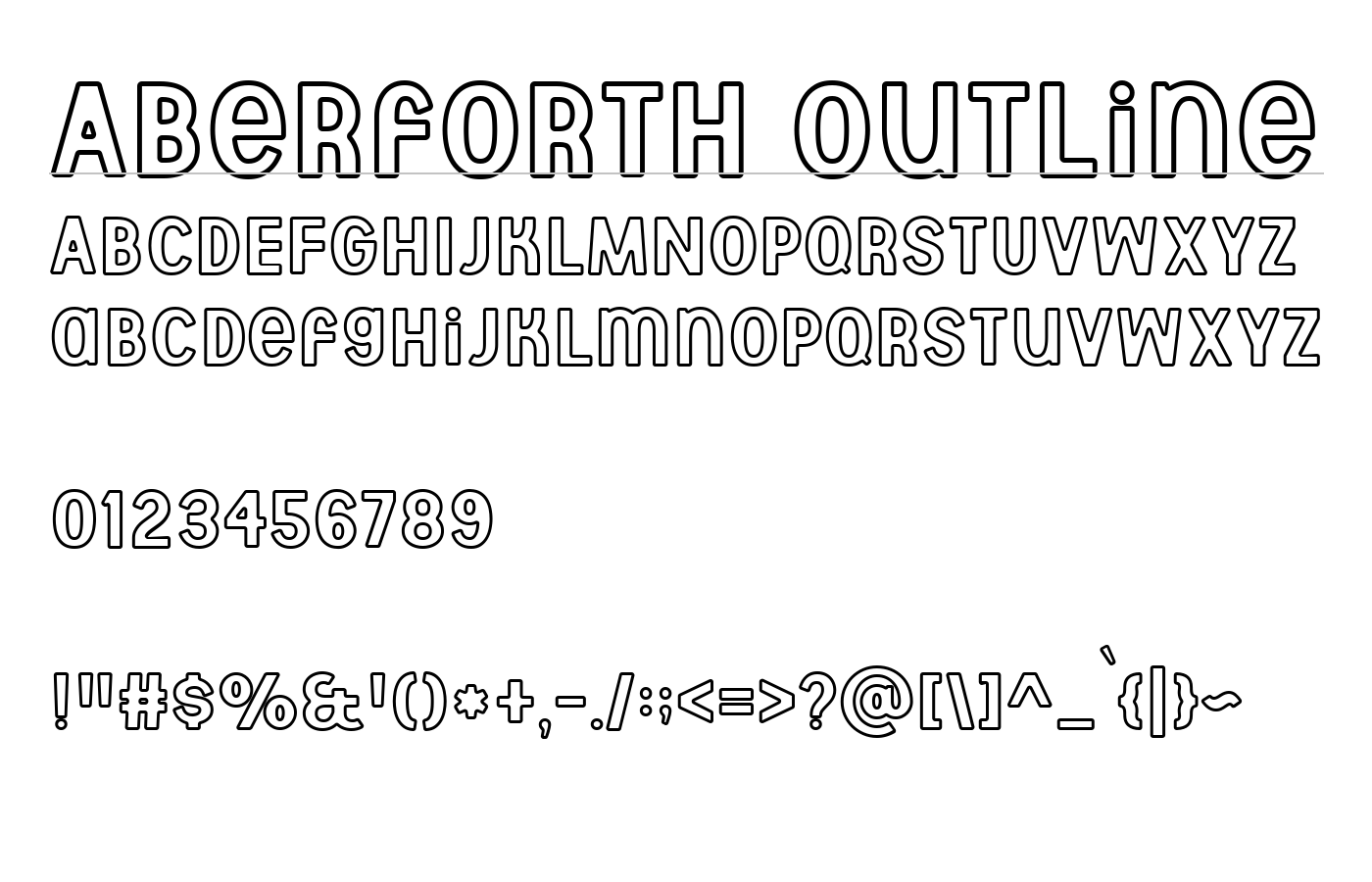
Aberforth Outline is a playful and modern sans serif font featuring an outlined, wide letterform with moderate x-height and rounded corners that add a friendly touch. Its clear, open design makes it ideal for attention-grabbing headlines, logos, and packaging where a light, airy feel with a hint of quirky personality is desired. This font works well in creative and casual branding contexts, offering readability combined with a unique, contemporary style.
Aberforth Outline Font
About Aberforth Outline Font